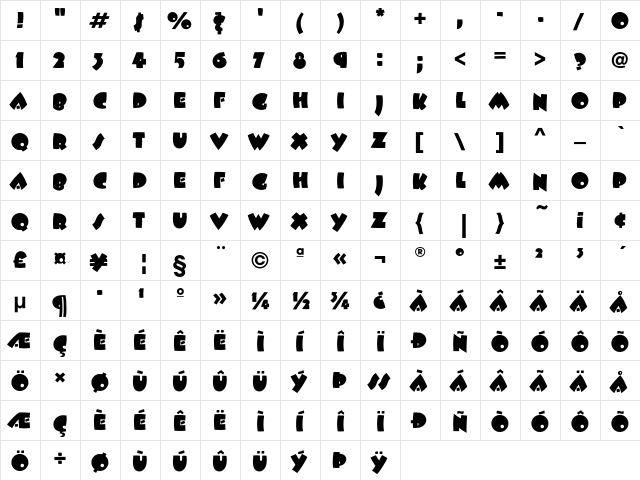
BeeskneesEF Regular
Design Context for BeeskneesEF Typeface
BeeskneesEF is a composed and adaptable typeface that performs quietly and consistently across a wide range of design contexts.